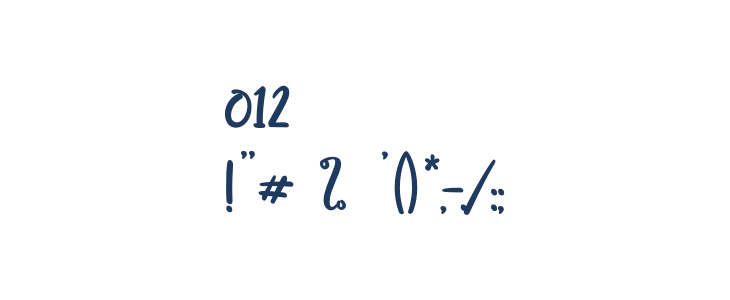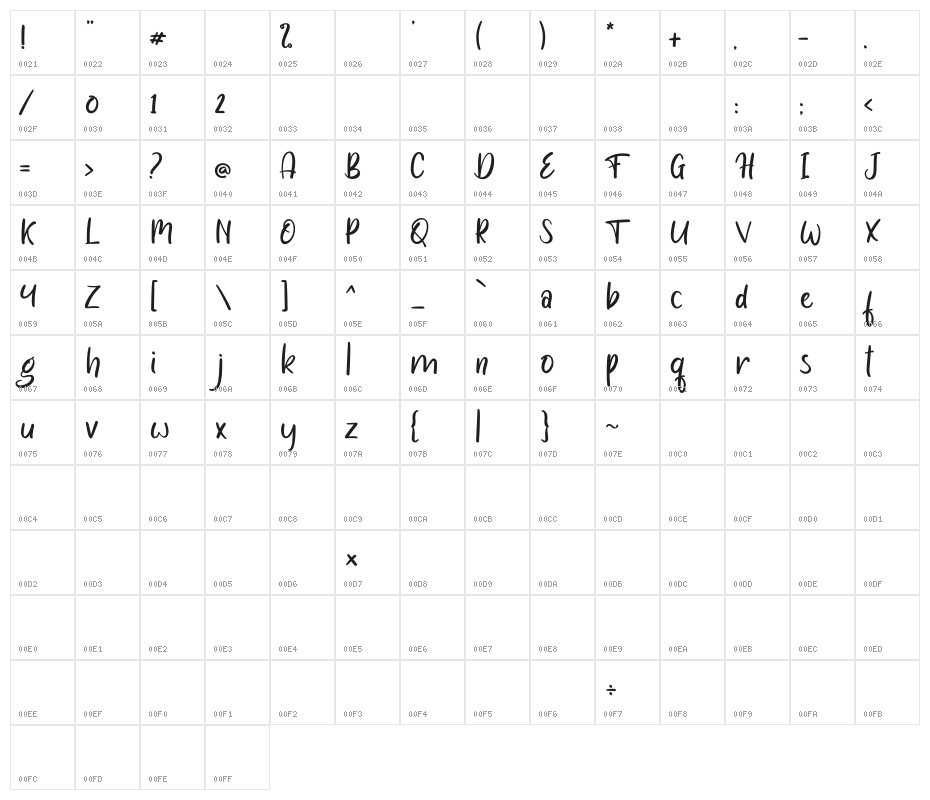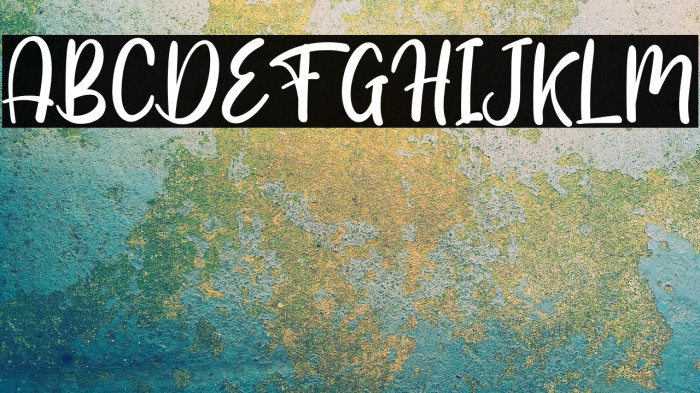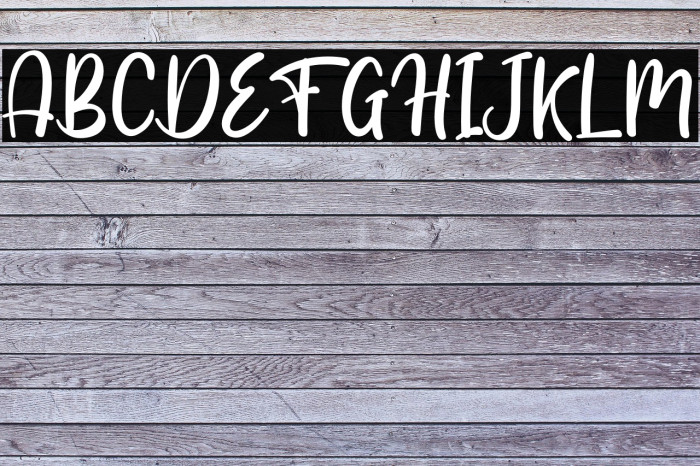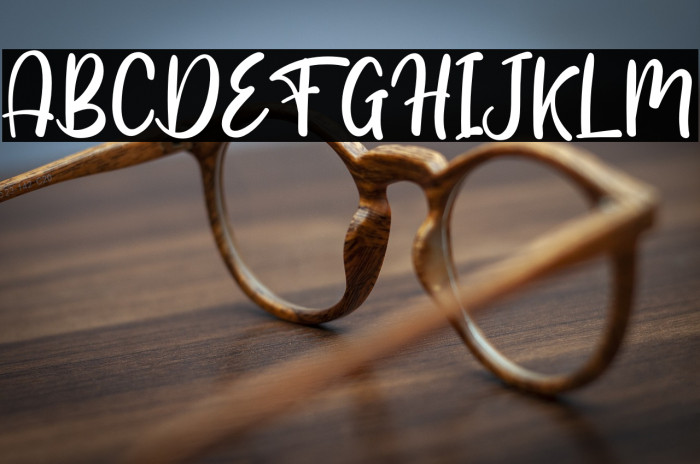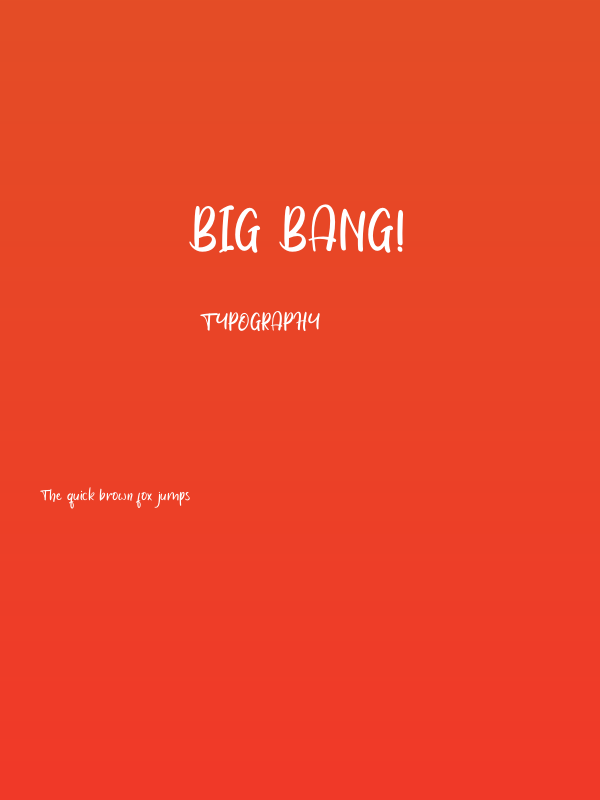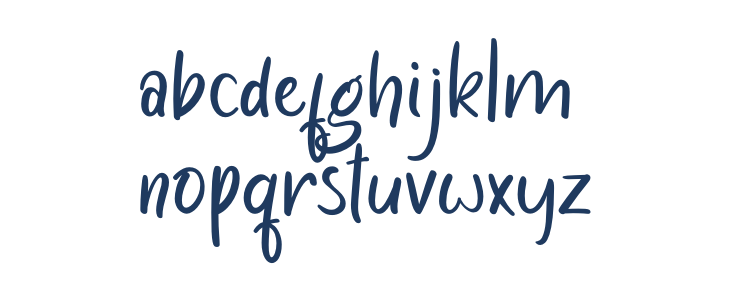
Big Bang! Font
Big Bang! Description
This playful and energetic font features a handwritten style with a casual, informal appearance. The letters are slightly slanted, giving a dynamic and lively feel. The strokes are smooth and rounded, with varying thickness that adds a sense of movement and personality. The uppercase and lowercase letters maintain a consistent style, while the numerals and special characters complement the overall design. This font is perfect for projects that require a personal touch or a fun, approachable aesthetic.
| Overall Style | Playful, Casual |
| Proposed Projects | Ideal for greeting cards, children's books, playful branding, and social media graphics. |